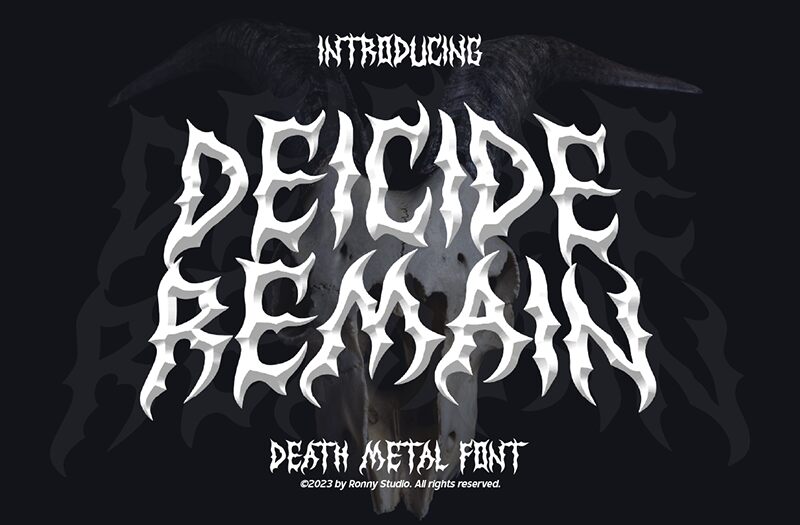
Deicide Remain by Ronny Studio is a captivating modern gothic font that exudes an aura of dark elegance. Its sharp, angular letterforms and refined, condensed silhouette create a striking visual presence, evoking a sense of mystery and foreboding. The font's bold, distinctive style makes it a standout choice for projects that seek to convey a sense of power, intensity, and a touch of the macabre.
Deicide Remain's versatility extends beyond its alluring aesthetic. Its condensed width allows for efficient text layout, making it an excellent selection for editorial design, branding, and promotional materials that require a bold, impactful typographic treatment. Whether crafting captivating book covers, crafting eerie movie posters, or designing cutting-edge metal album artwork, Deicide Remain by Ronny Studio is a font that commands attention and leaves a lasting impression.
Deicide Remain